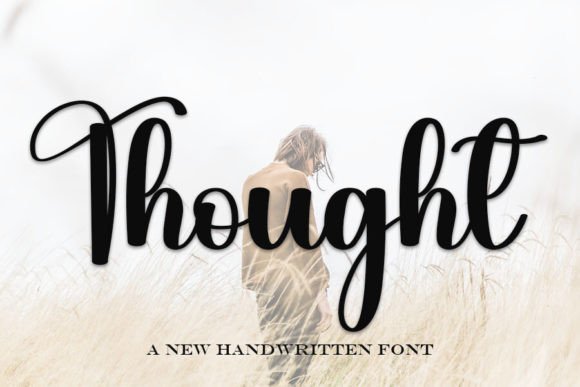
Introducing Thought Font, a mesmerizing script font crafted by the skilled hands of putrasyahreza00 exclusively for TV Display. Thought is not just a font; it's an experience that transcends the ordinary. Immerse yourself in a world of visual delight and elevate your creative projects to new heights. Let your imagination soar as you explore the endless possibilities of Thought, the perfect font for making your TV Display stand out from the crowd.
With its elegant flow and captivating style, Thought is a true work of art. Its delicate curves and graceful strokes will add a touch of sophistication to any project, while its eye-catching presence will leave a lasting impression on your audience. From captivating TV shows to engaging presentations, Thought is the font that will make your words come alive.
Crafted with meticulous attention to detail, Thought is a versatile font that adapts seamlessly to a wide range of projects. Its timeless style makes it the perfect choice for both modern and classic designs, ensuring that your projects remain relevant and impactful. Whether you're a seasoned designer or just starting, Thought is the font that will unleash your creativity and bring your ideas to life.
So why settle for ordinary when you can have extraordinary? Embrace Thought Font today and embark on a creative journey that will leave you inspired. Let your designs shine with a font that speaks volumes and captivates hearts. Thought is more than just a font; it's an investment in your creative future.